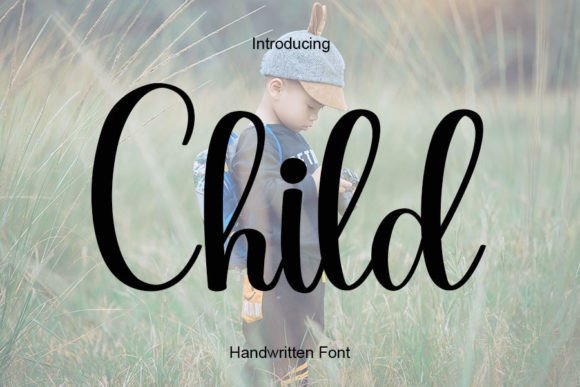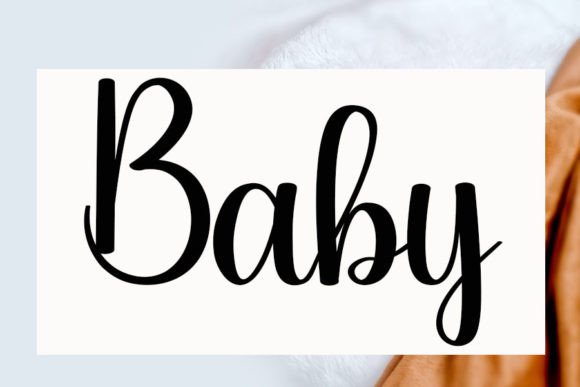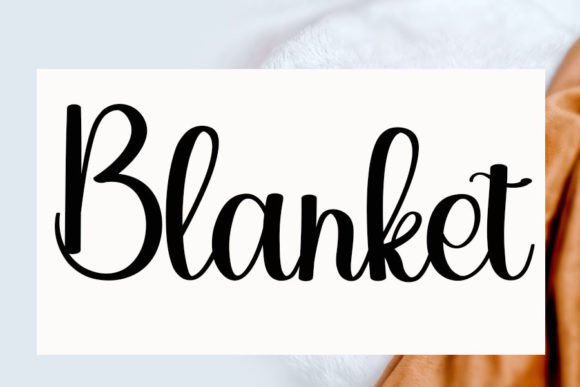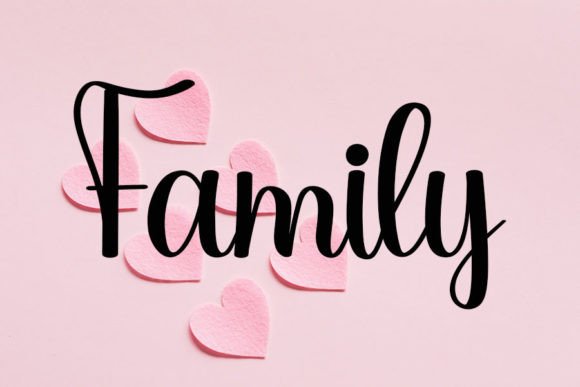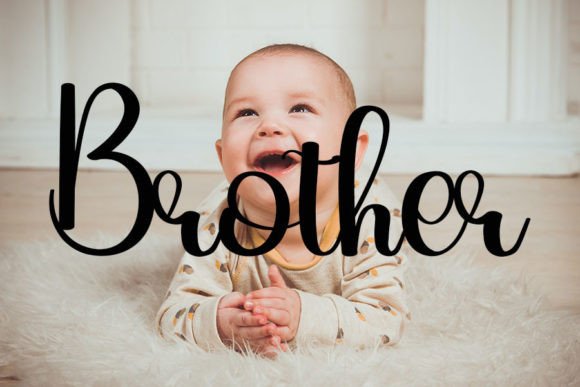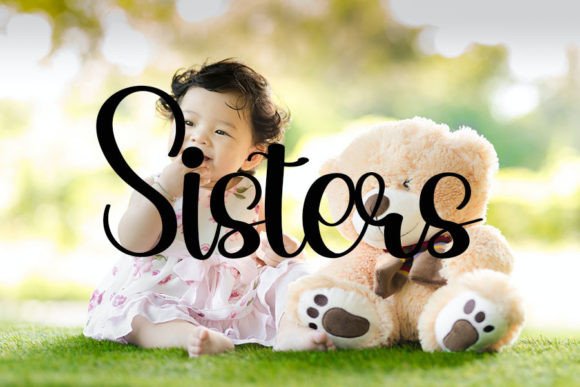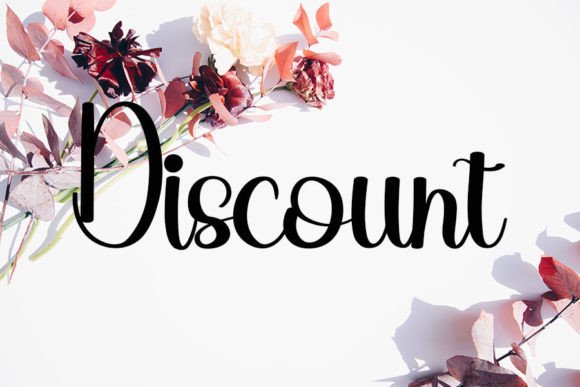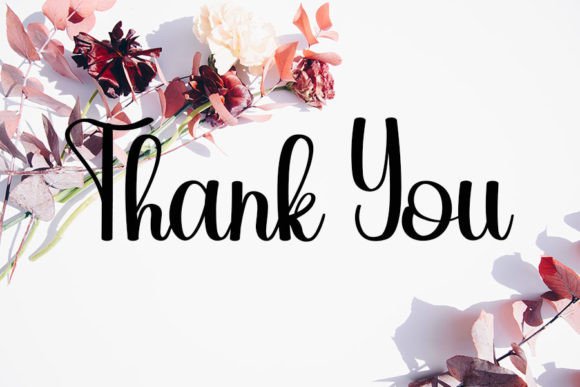
Child Font
About Child Font
Child font is a neat and beautiful handwritten typeface, designed with an elegant touch that suits a variety of creative projects. When you download Child font, you gain access to a distinct and timeless style that will elevate your designs effortlessly.
The Child font stands out for its clean and graceful strokes, offering both sophistication and charm. Its elegant appearance makes it perfect for branding, invitations, greeting cards, and more. Download Childfont to add a personal, handwritten flair to your work that captures attention and inspires.
Versatile Usage for Creative Projects
This handwritten font is versatile and can be used across multiple design contexts, such as:
• Personal and professional branding
• Wedding invitations and thank-you cards
• Social media posts and digital marketing
• Packaging design and product labels